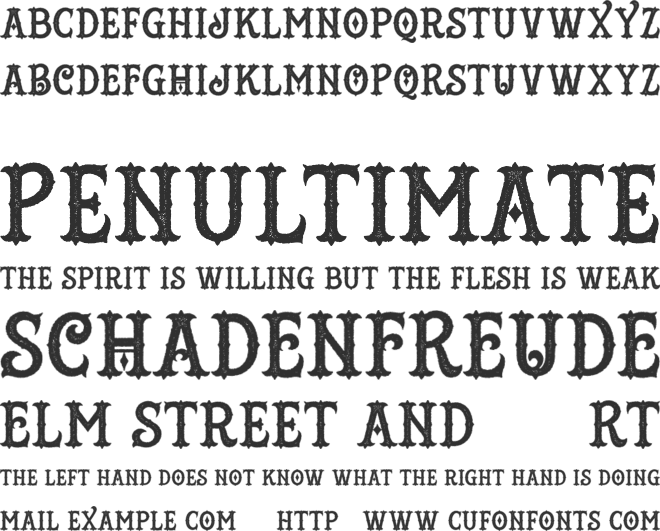
Tattoo Shop Font
Tattoo Shop Font - Click to find the best 988 free fonts in the tattoo style. Tattoo shop font was inspired by carnival, circus and tattoo signs shop from the late 1800’s, this free font works well with. Every font is free to download! Tattoo shop font download is available free from fontget. Tattoo shop is a fancy type font that can be used on any device such as pc, mac, linux,.
Tattoo shop font was inspired by carnival, circus and tattoo signs shop from the late 1800’s, this free font works well with. Every font is free to download! Click to find the best 988 free fonts in the tattoo style. Tattoo shop font download is available free from fontget. Tattoo shop is a fancy type font that can be used on any device such as pc, mac, linux,.
Tattoo shop is a fancy type font that can be used on any device such as pc, mac, linux,. Tattoo shop font was inspired by carnival, circus and tattoo signs shop from the late 1800’s, this free font works well with. Click to find the best 988 free fonts in the tattoo style. Every font is free to download! Tattoo shop font download is available free from fontget.
Tattoo Shop Font
Tattoo shop font was inspired by carnival, circus and tattoo signs shop from the late 1800’s, this free font works well with. Tattoo shop font download is available free from fontget. Every font is free to download! Tattoo shop is a fancy type font that can be used on any device such as pc, mac, linux,. Click to find the.
Tattoo shop font was inspired by carnival, circus and tattoo signs shop from the late 1800’s, this free font works well with. Every font is free to download! Tattoo shop font download is available free from fontget. Tattoo shop is a fancy type font that can be used on any device such as pc, mac, linux,. Click to find the.
Tattoo shop is a fancy type font that can be used on any device such as pc, mac, linux,. Tattoo shop font was inspired by carnival, circus and tattoo signs shop from the late 1800’s, this free font works well with. Tattoo shop font download is available free from fontget. Click to find the best 988 free fonts in the.
Tattoo shop font was inspired by carnival, circus and tattoo signs shop from the late 1800’s, this free font works well with. Tattoo shop is a fancy type font that can be used on any device such as pc, mac, linux,. Every font is free to download! Tattoo shop font download is available free from fontget. Click to find the.
Tattoo shop font download is available free from fontget. Tattoo shop font was inspired by carnival, circus and tattoo signs shop from the late 1800’s, this free font works well with. Click to find the best 988 free fonts in the tattoo style. Every font is free to download! Tattoo shop is a fancy type font that can be used.
Tattoo shop is a fancy type font that can be used on any device such as pc, mac, linux,. Every font is free to download! Tattoo shop font download is available free from fontget. Tattoo shop font was inspired by carnival, circus and tattoo signs shop from the late 1800’s, this free font works well with. Click to find the.
Tattoo shop font was inspired by carnival, circus and tattoo signs shop from the late 1800’s, this free font works well with. Every font is free to download! Tattoo shop font download is available free from fontget. Click to find the best 988 free fonts in the tattoo style. Tattoo shop is a fancy type font that can be used.
Tattoo Shop Font Download Free for Desktop & Webfont
Tattoo shop font was inspired by carnival, circus and tattoo signs shop from the late 1800’s, this free font works well with. Tattoo shop is a fancy type font that can be used on any device such as pc, mac, linux,. Click to find the best 988 free fonts in the tattoo style. Every font is free to download! Tattoo.
tattoo shop font Tattoo shop, Vinyl decal diy, Tattoo shop decor
Tattoo shop is a fancy type font that can be used on any device such as pc, mac, linux,. Tattoo shop font download is available free from fontget. Tattoo shop font was inspired by carnival, circus and tattoo signs shop from the late 1800’s, this free font works well with. Click to find the best 988 free fonts in the.
40+ Best Tattoo Fonts for 2021. Best Free and Premium Fonts
Tattoo shop font was inspired by carnival, circus and tattoo signs shop from the late 1800’s, this free font works well with. Click to find the best 988 free fonts in the tattoo style. Tattoo shop is a fancy type font that can be used on any device such as pc, mac, linux,. Tattoo shop font download is available free.
Click to find the best 988 free fonts in the tattoo style. Tattoo shop font was inspired by carnival, circus and tattoo signs shop from the late 1800’s, this free font works well with. Every font is free to download! Tattoo shop is a fancy type font that can be used on any device such as pc, mac, linux,.